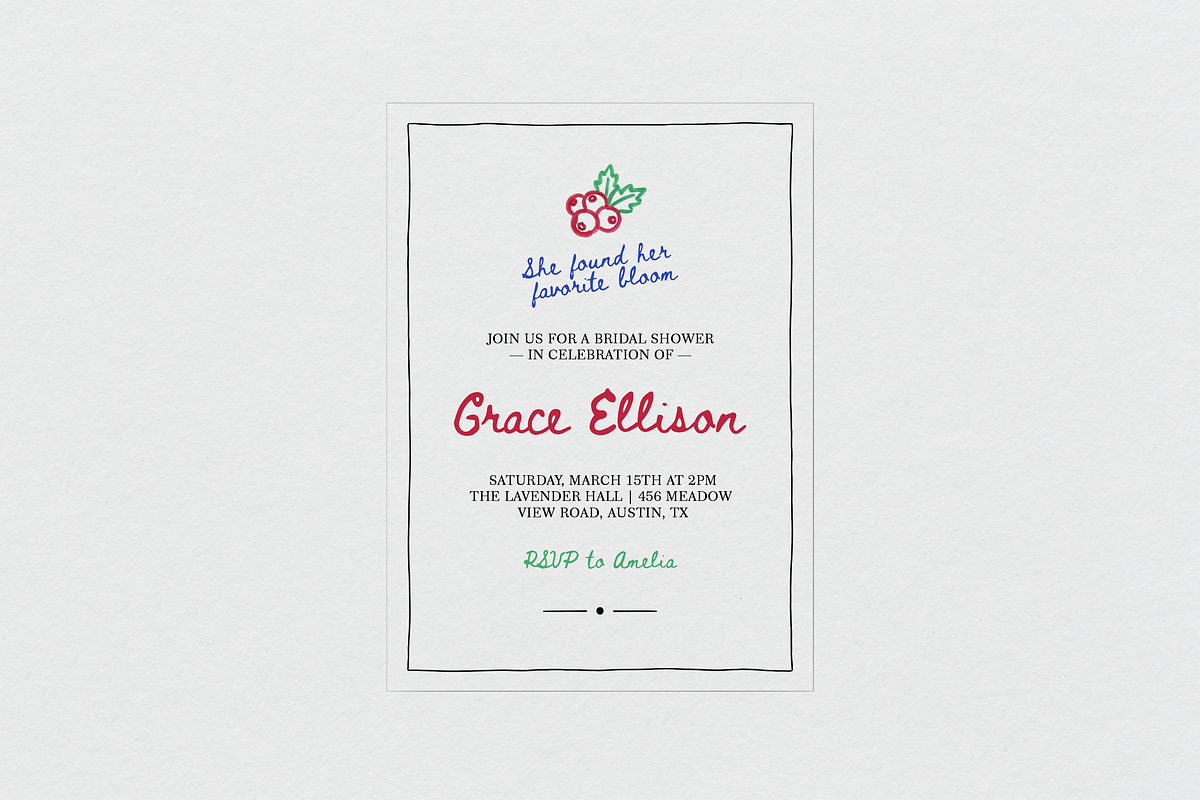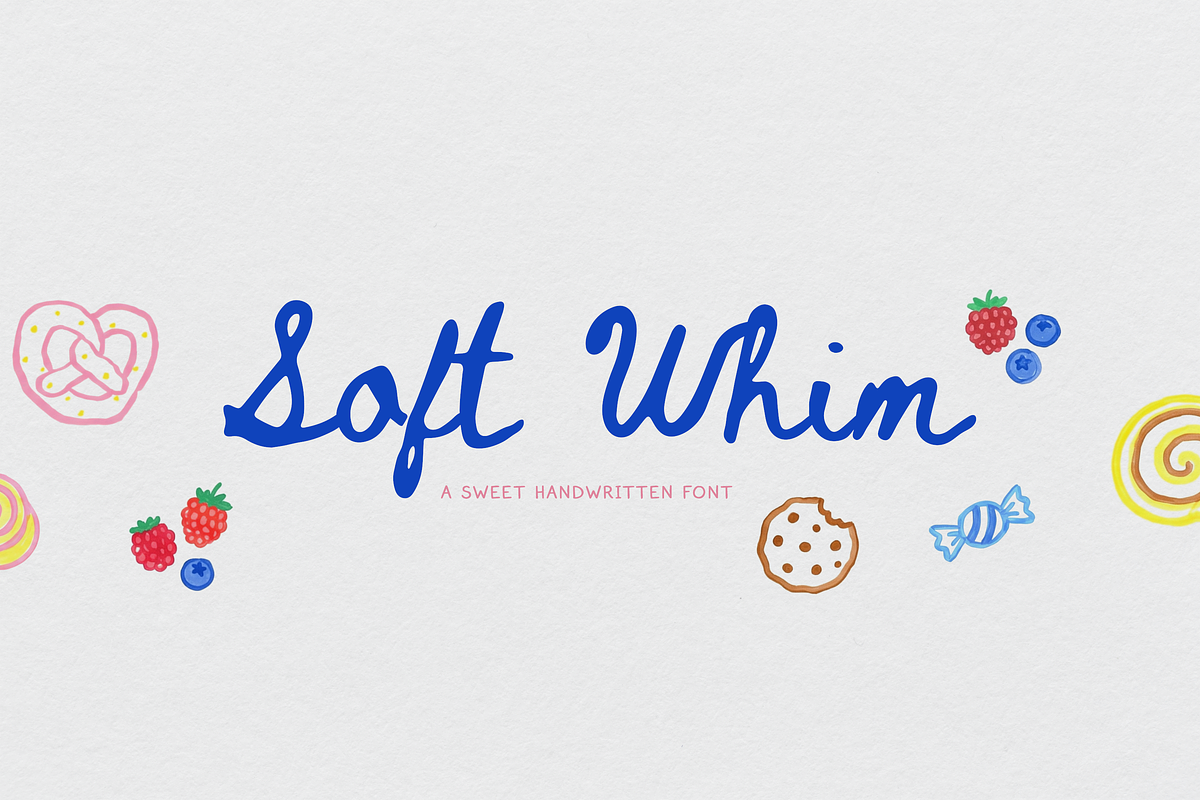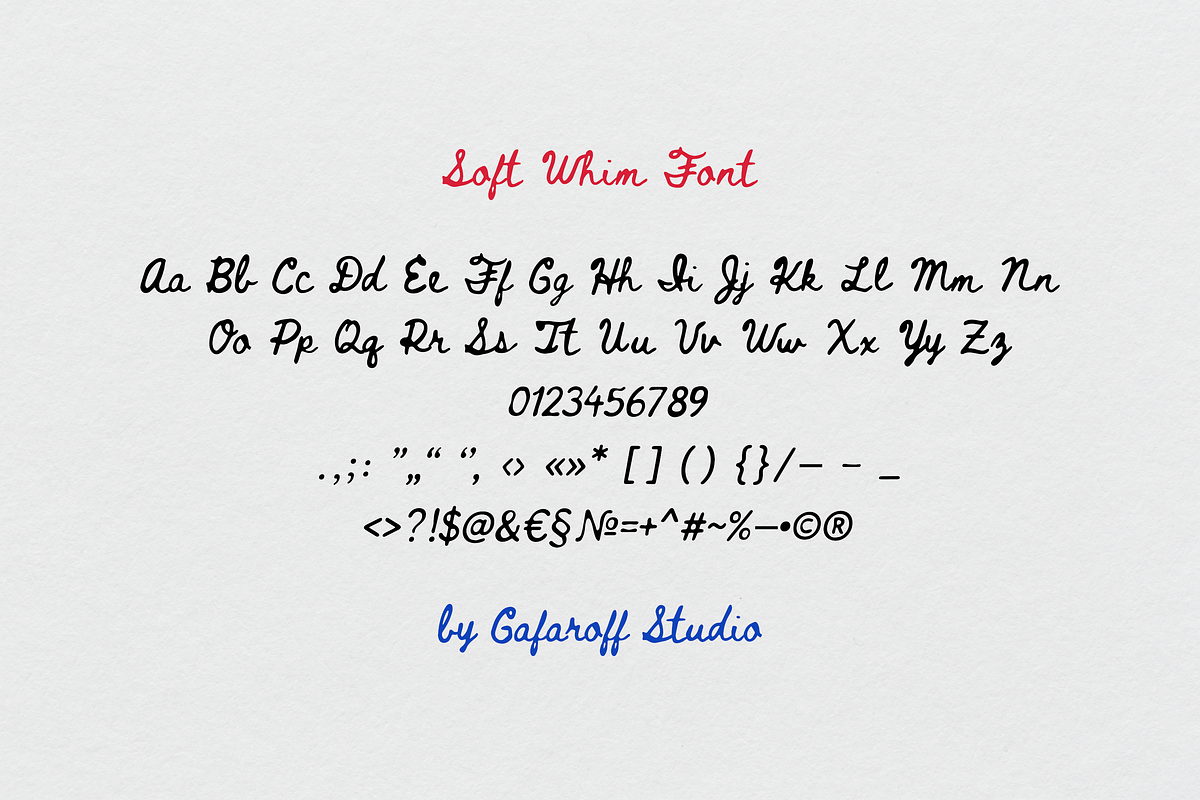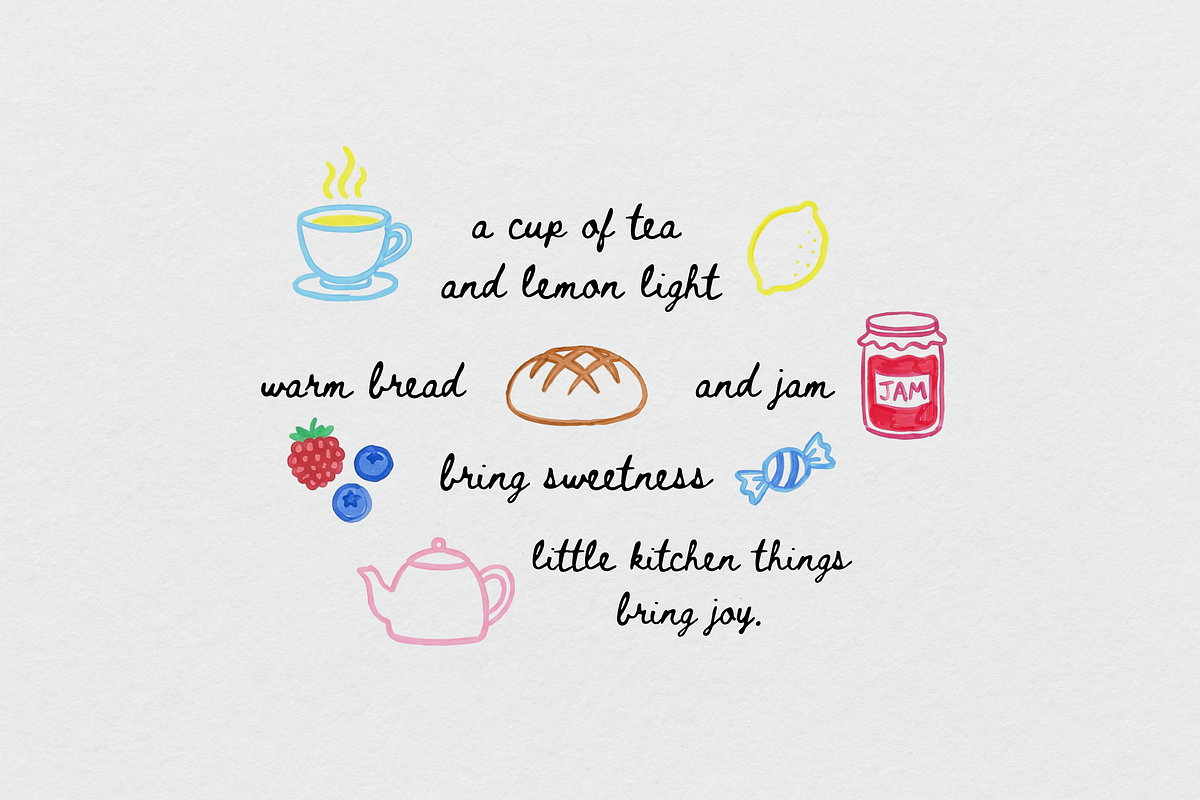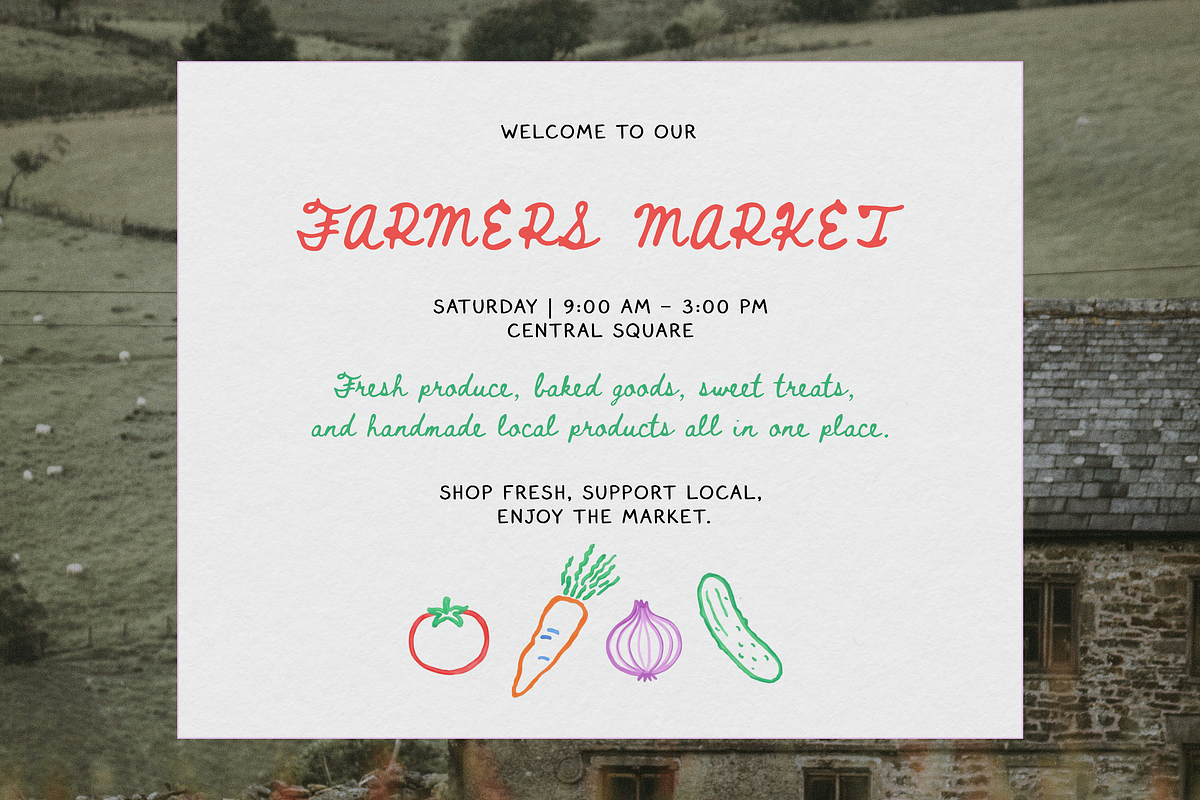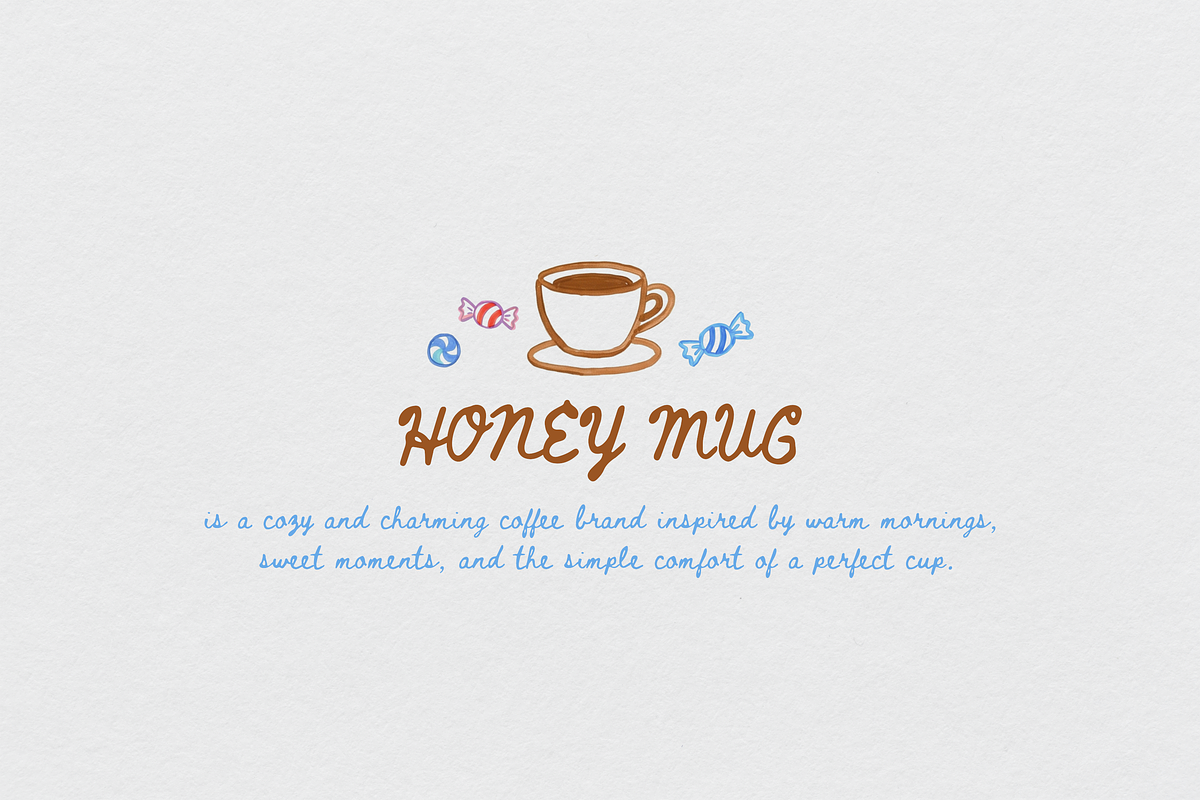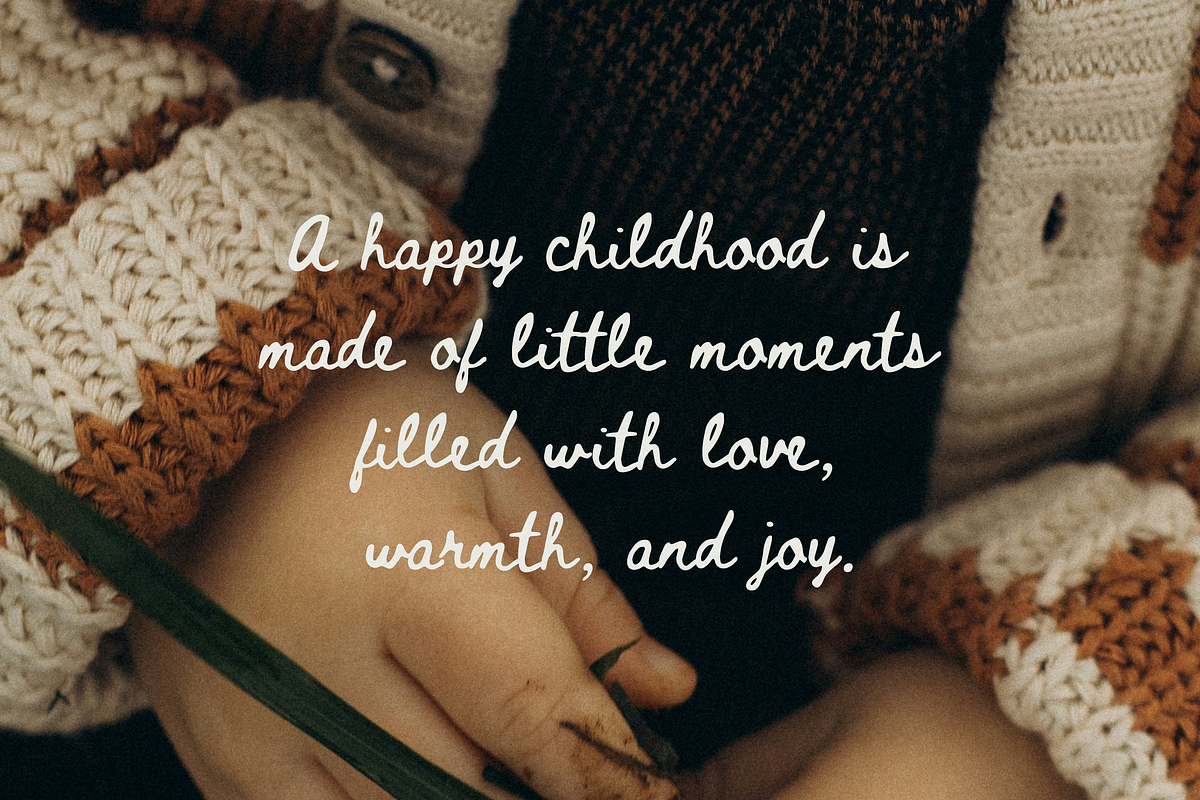
Soft Whim Handwritten Script Font
Soft Whim is a warm and whimsical handwritten script font created for designs that need personality, softness, and an authentic handmade touch.
With its rounded curves, playful rhythm, and naturally imperfect letterforms, Soft Whim feels cheerful, personal, and full of character. It brings a cozy hand-lettered look to your work while staying clear and easy to use.
Soft Whim is especially suited to creative small businesses, playful brand identities, charming packaging, heartfelt stationery, and lifestyle designs.
• Logos and brand identities • Café, bakery, farmers market, and food branding • Product packaging, labels, and tags • Wedding and bridal shower invitations • Nursery art and children’s products • Greeting cards and stationery • Stickers, mugs, apparel, and printed goods • Social media graphics and quote designs • Short headlines, names, and editorial accents
Soft Whim works beautifully on its own and pairs easily with a clean sans serif or simple monoline font for a balanced, modern handmade look.